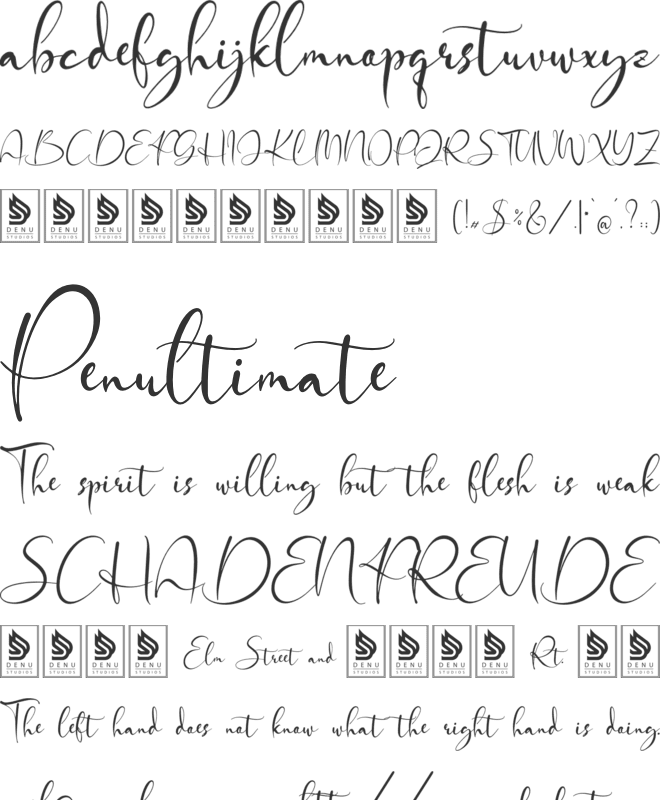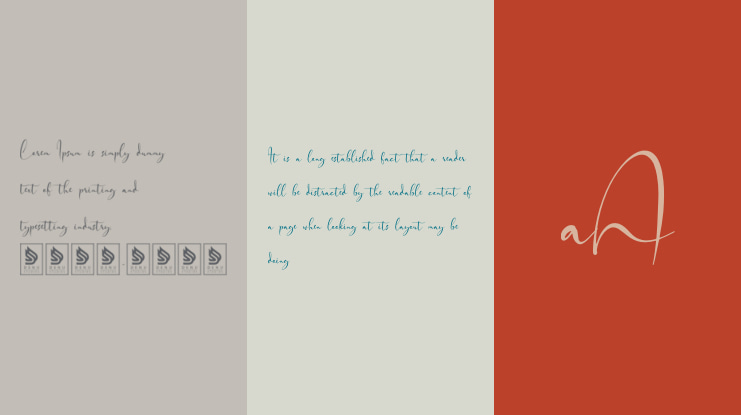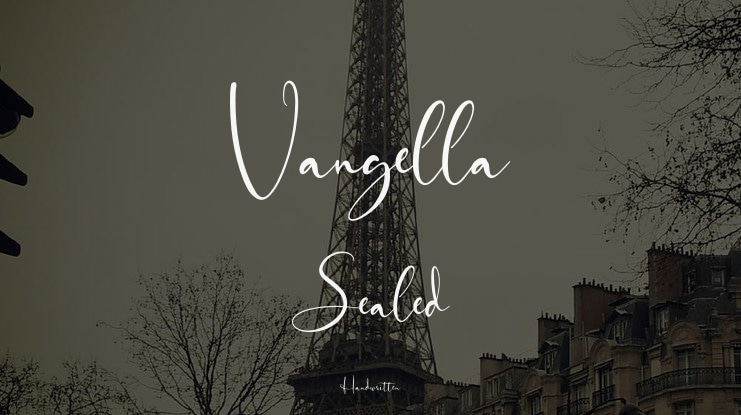
Vangella Sealed | Handwritten Script is suitable for any projects such as: logos, branding projects, homeware designs, product packaging, mugs, quotes, posters, shopping bags, t-shirts, book covers, name card, invitation cards, greeting cards, label, photography, watermark, special events, and all your other lovely projects that need a Handwritten Script taste.